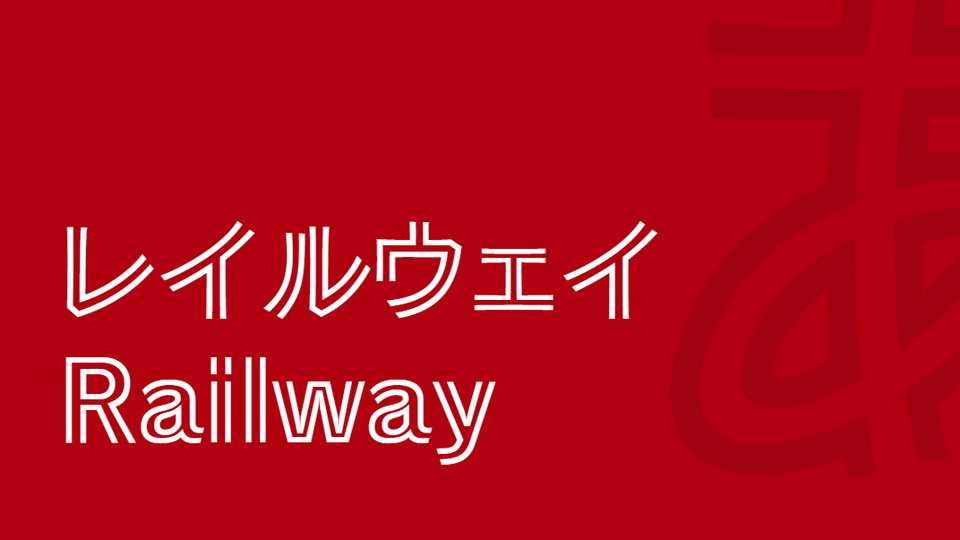
Download Train font, a gothic-style typeface made with an outer and inner line. Train font is open and vibrant, and its strong first impression makes it suitable for logos and titles.
Designer: Fontworks Inc.